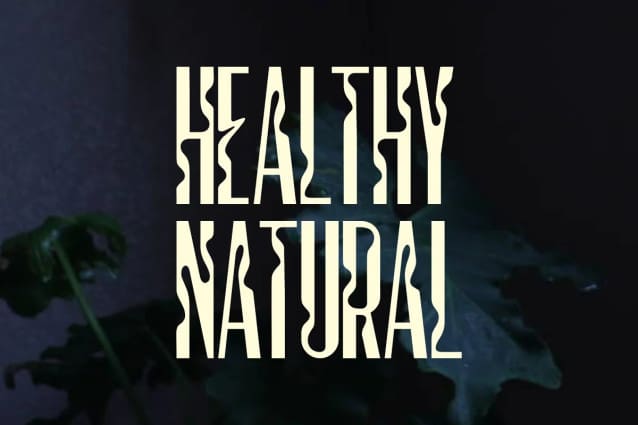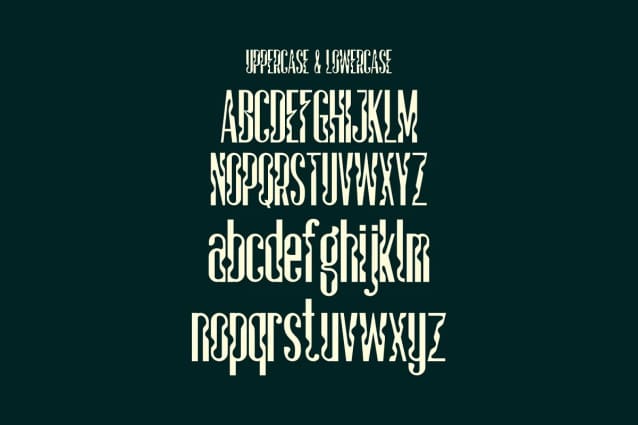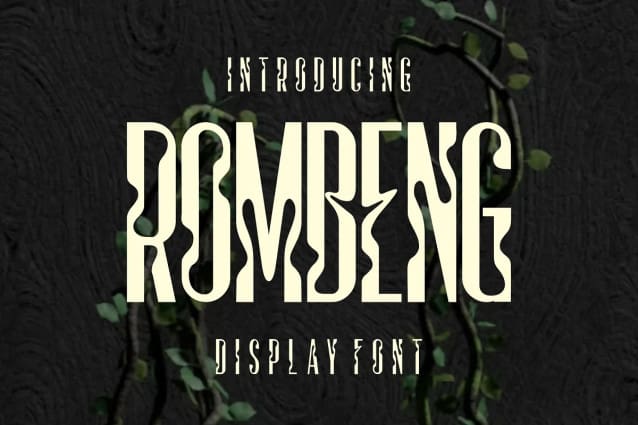
Rombeng Font
Rombeng Font is a bold and unique sans display font. No matter the topic, this font will be an incredible asset to your fonts’ library, as it has the potential to elevate any creation.